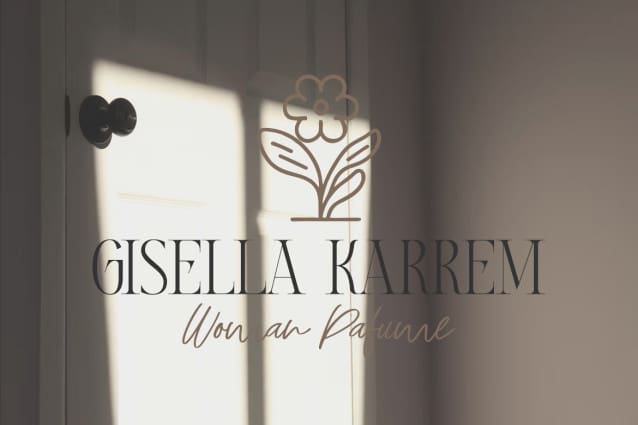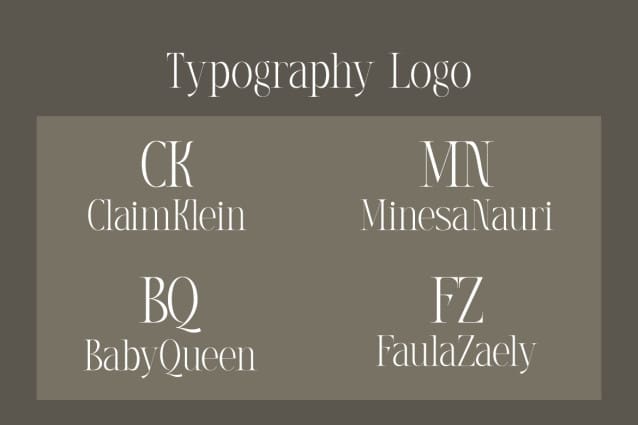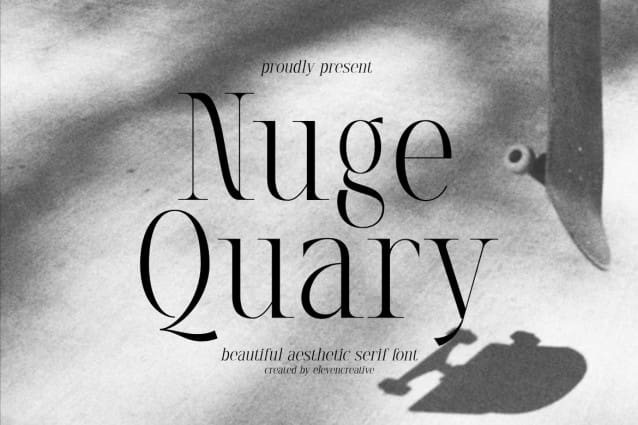
Nuge Quary Font
Nuge Quary Font: This collection of Serif is perfect for personal branding. It was designed with the purpose of being used for your personal branding. But it works well for many applications. Everything from personal branding, logos, name tag, handwritten quotes, product packaging, merchandise, social media, and greeting cards. Photographic signature and advertising could benefit from this collection of these bold signature fonts